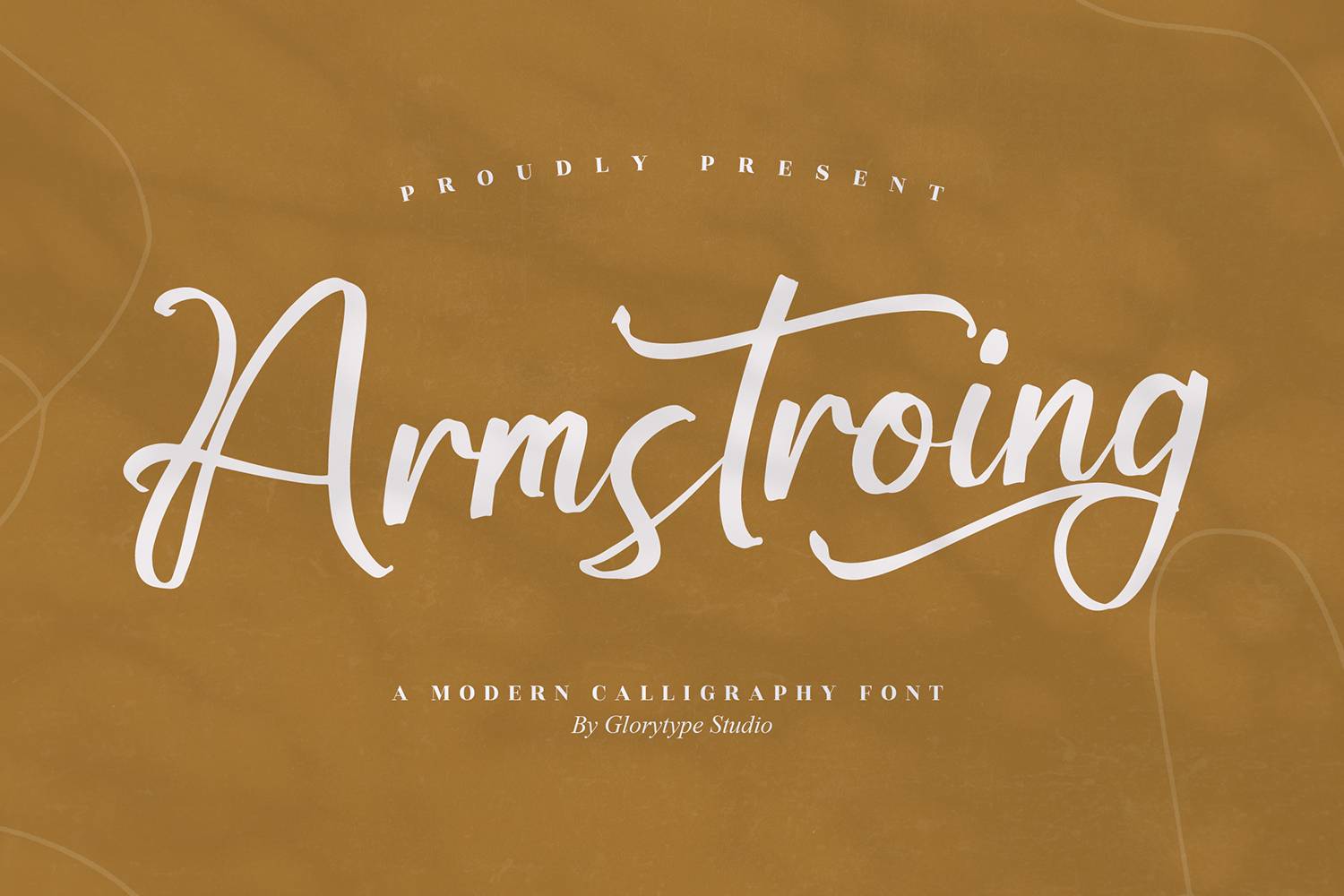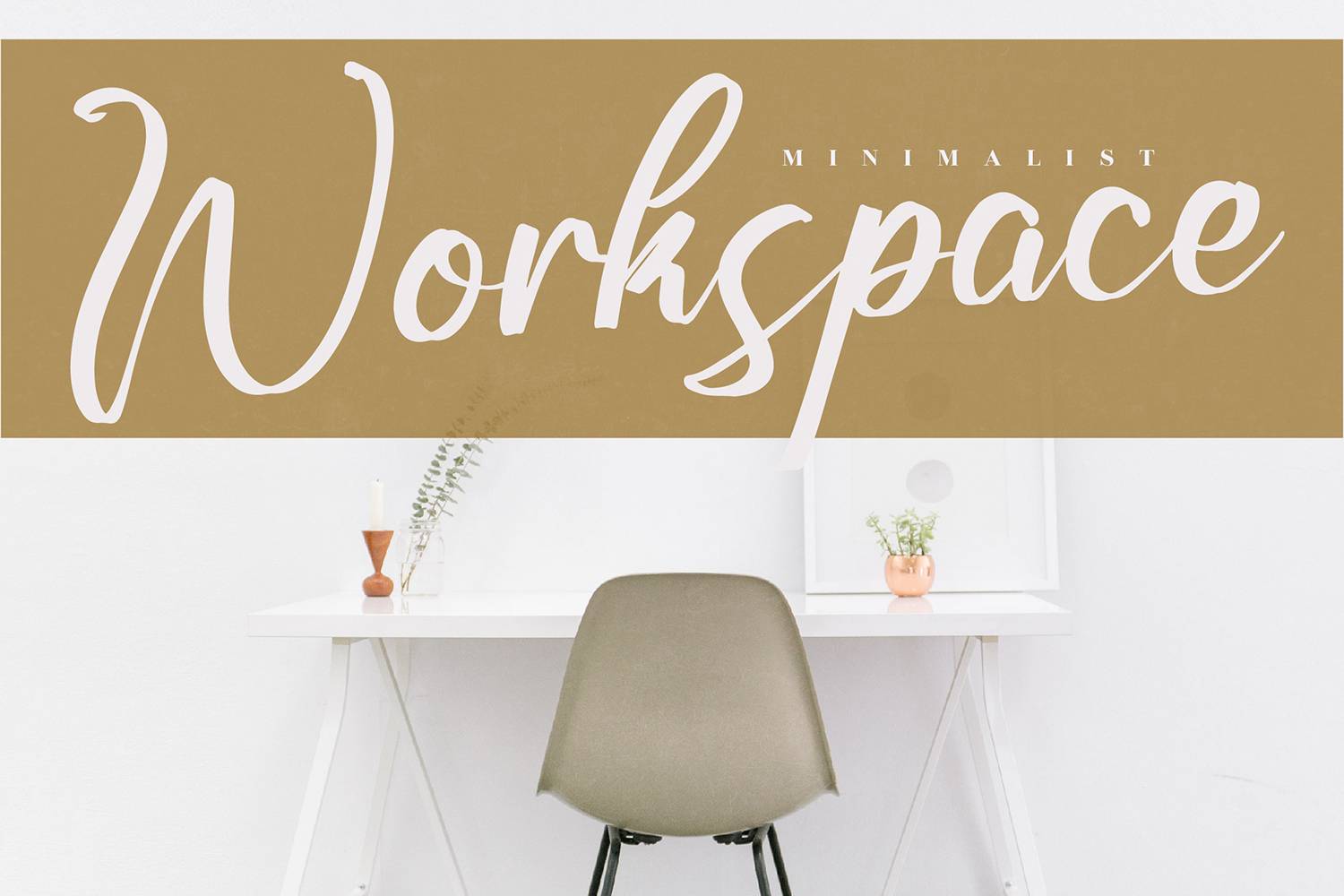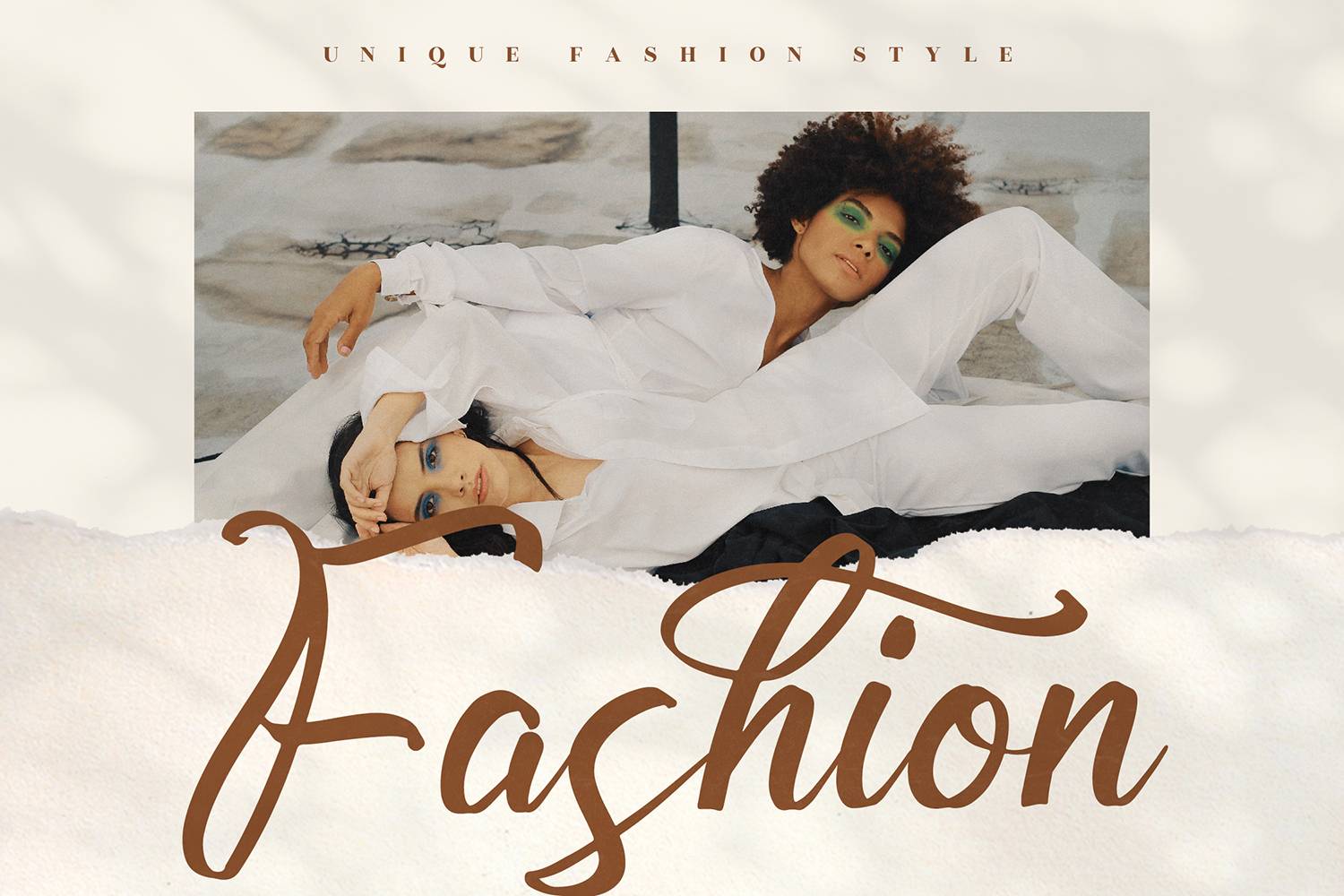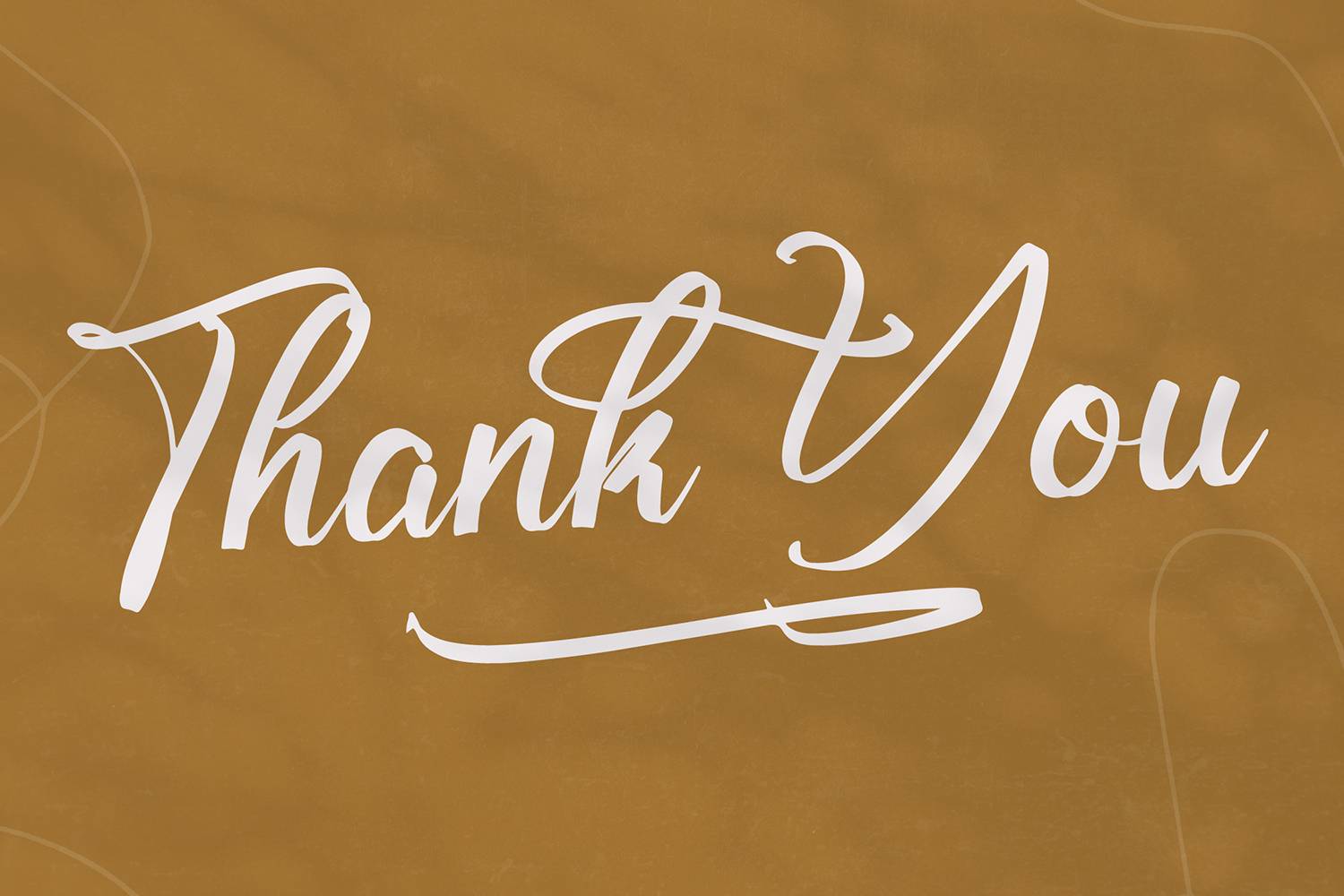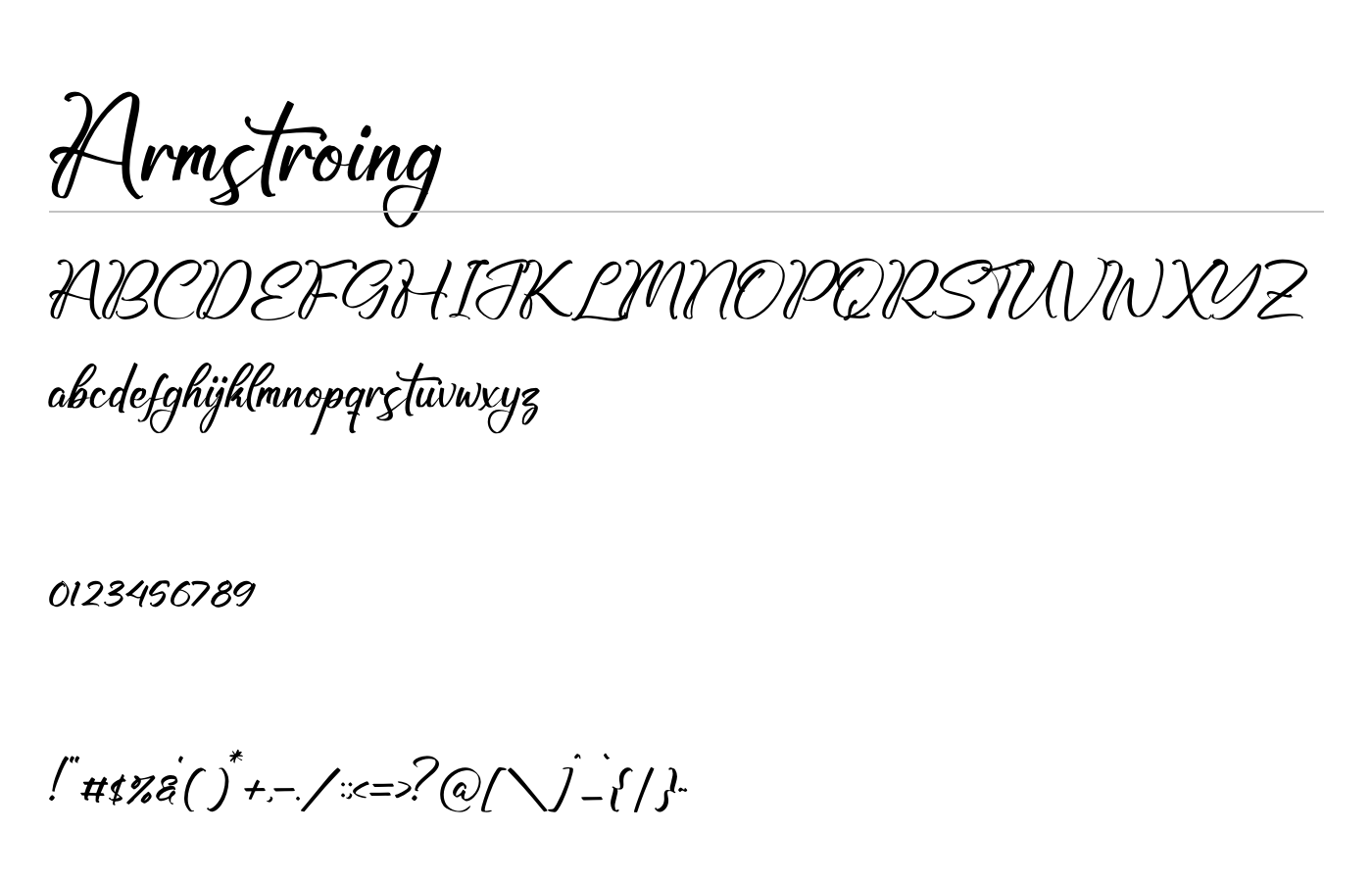
Armstroing is an elegant script font featuring a fluid, hand-drawn style with smooth, flowing strokes that give it a graceful and sophisticated feel. Its slender letterforms and subtle variations make it ideal for invitations, branding, and creative projects that seek a personal, artistic touch. This font works beautifully in headlines or decorative text where a refined yet approachable aesthetic is desired.
Armstroing Font
About Armstroing Font